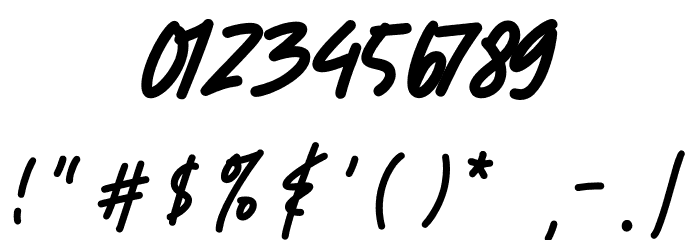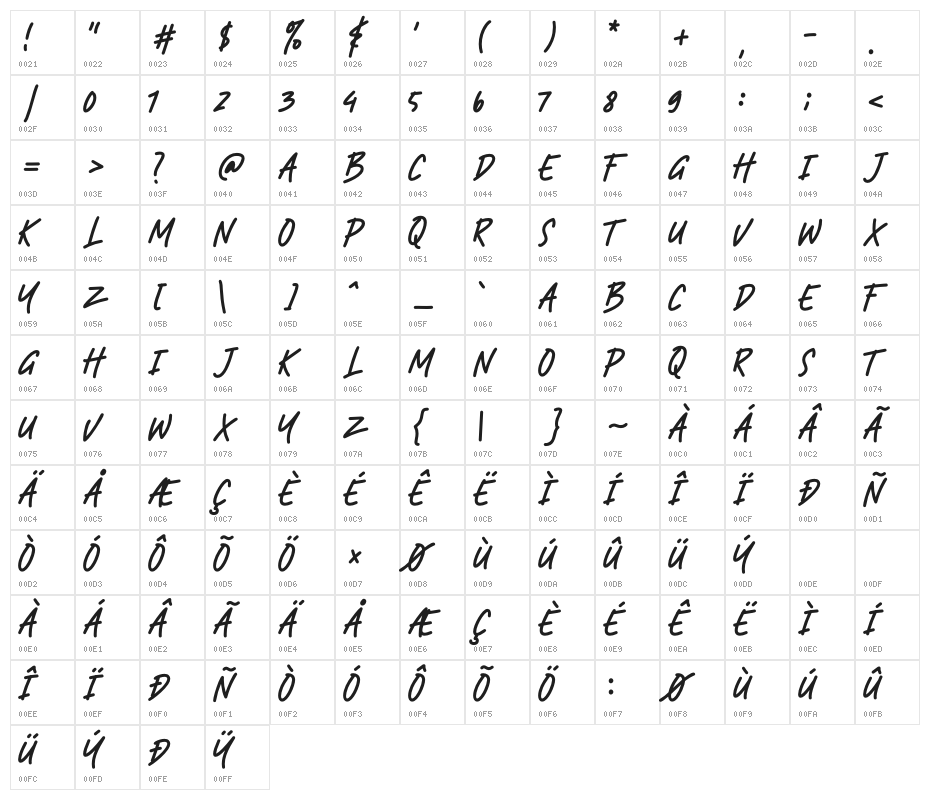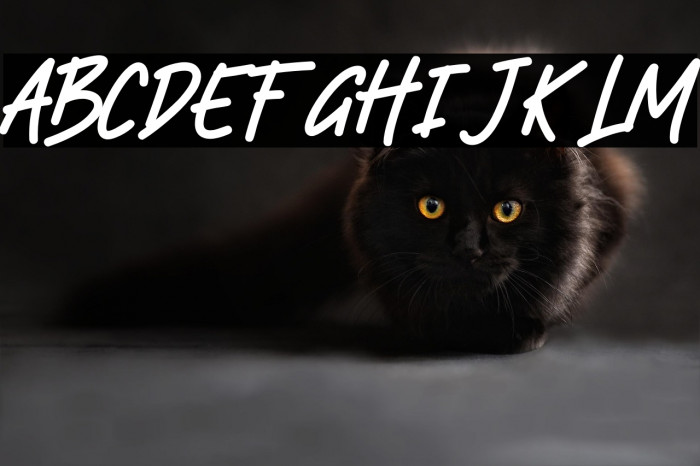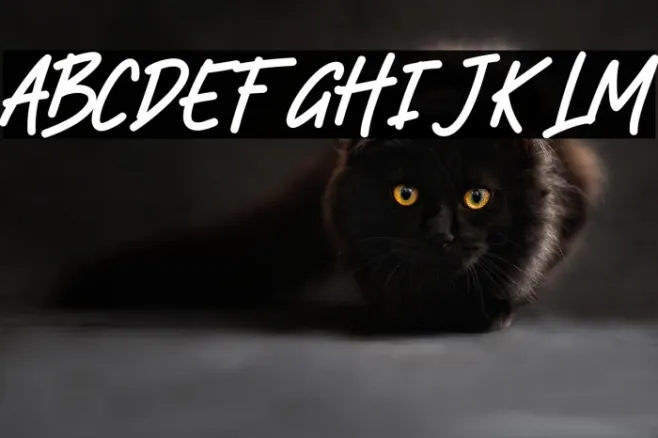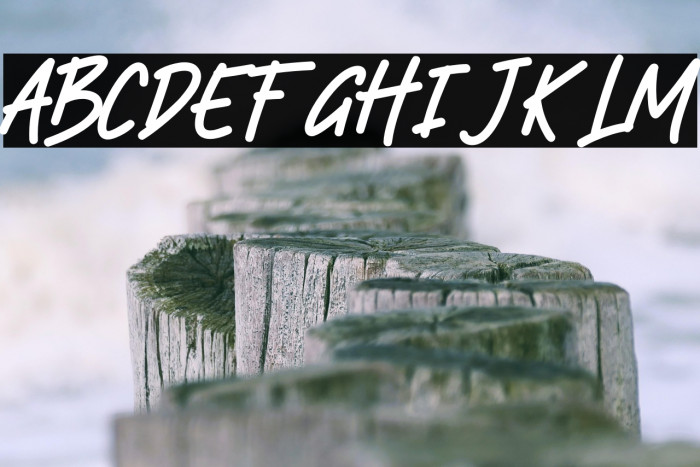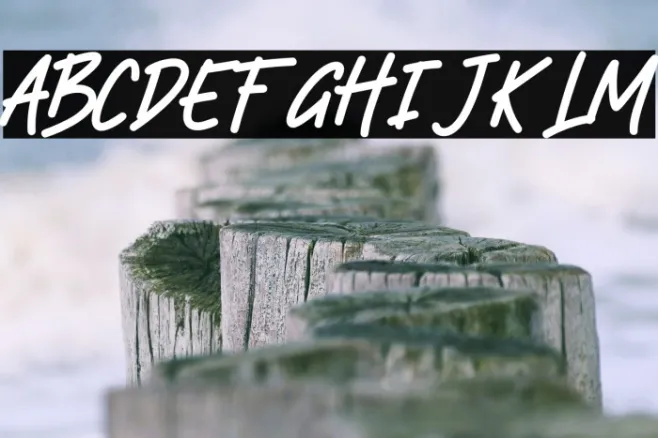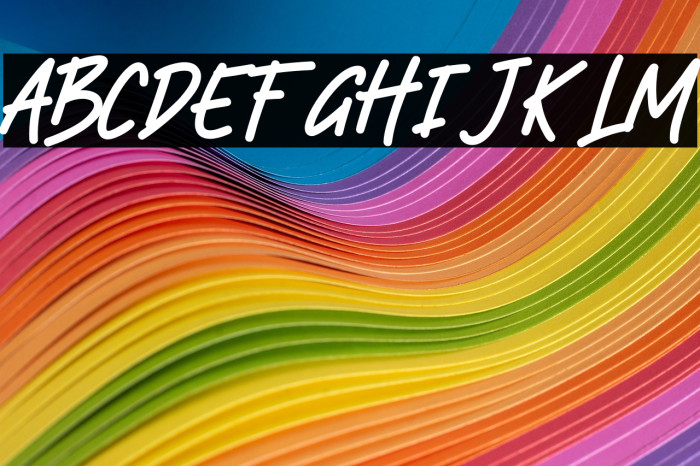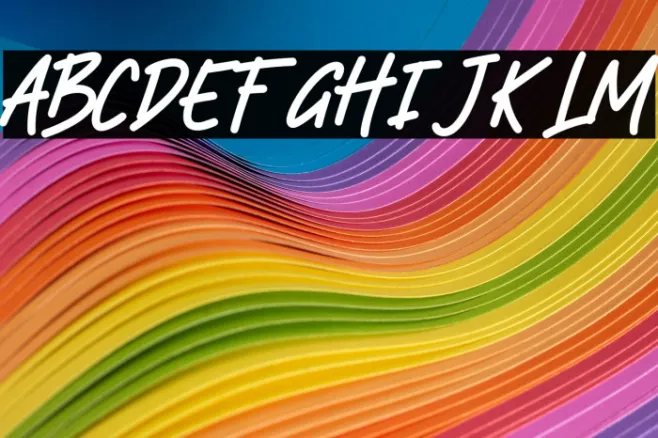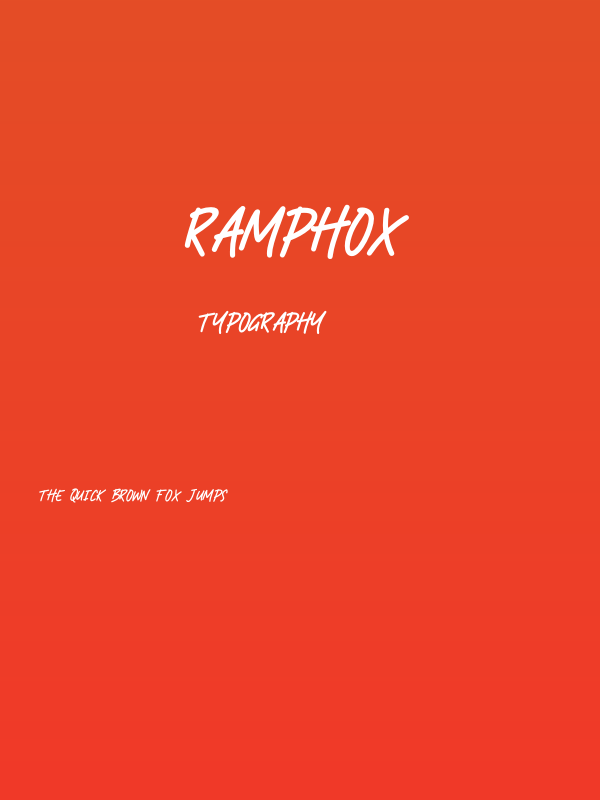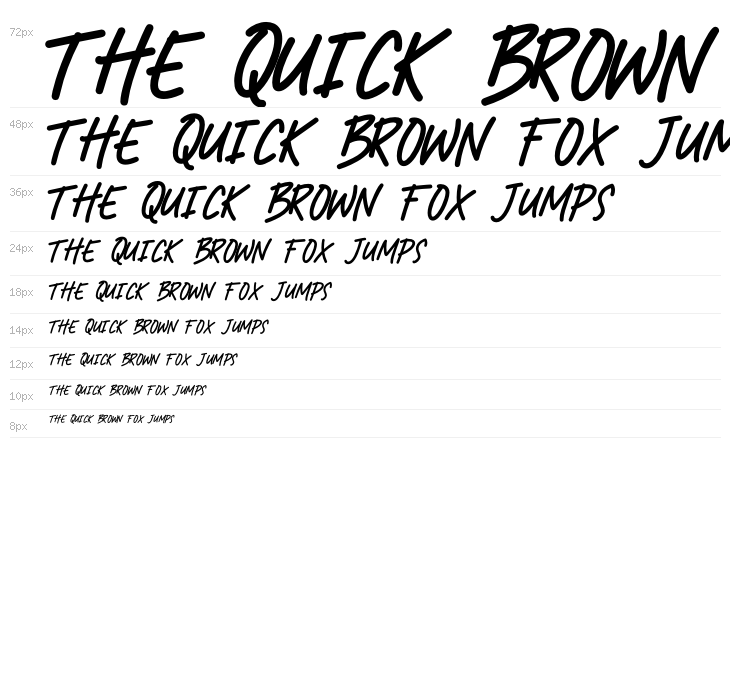
Ramphox Font
Ramphox Description
This font exudes a dynamic and energetic feel with its bold, handwritten style. The characters are fluid and slightly slanted, giving a sense of motion and informality. The strokes are thick and consistent, providing a strong visual impact. The uppercase and lowercase letters maintain a cohesive look, while the numbers and special characters integrate seamlessly. This font is perfect for projects that require a personal touch or a casual, yet assertive, aesthetic.
| Proposed Projects | Ideal for branding, social media graphics, posters, and invitations where a personal and informal touch is desired. |